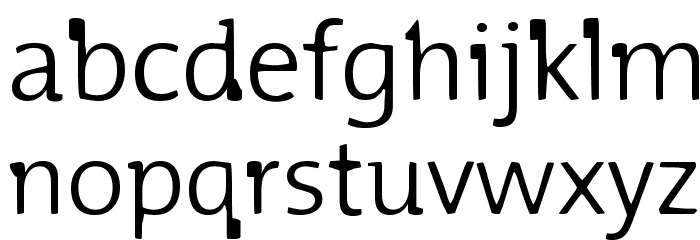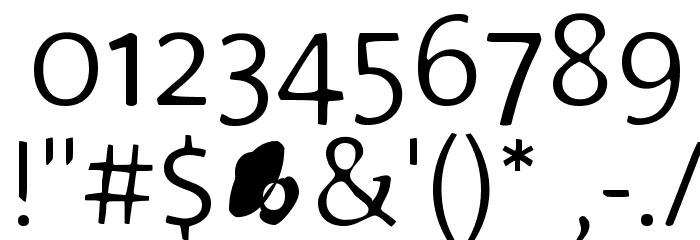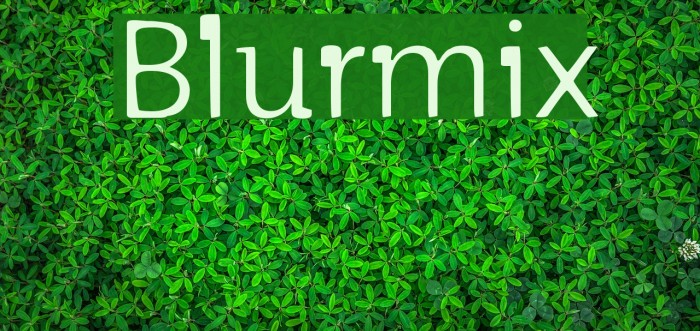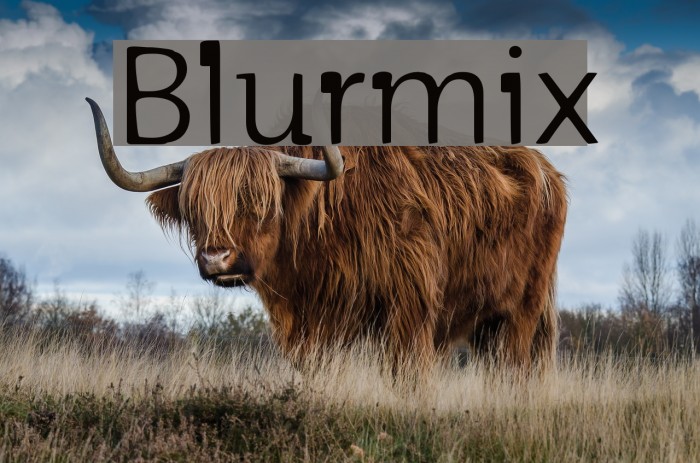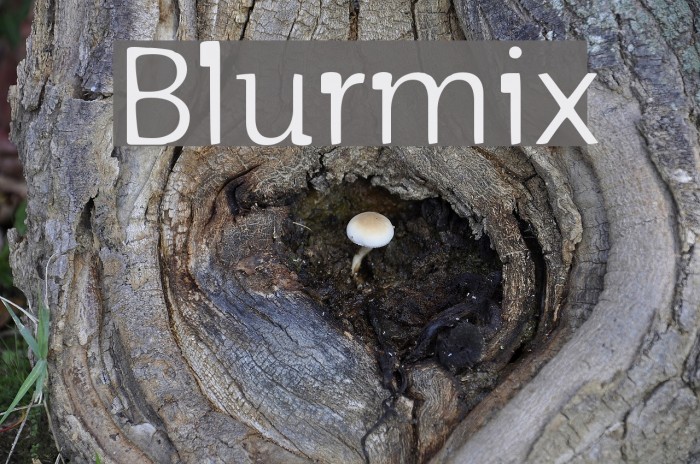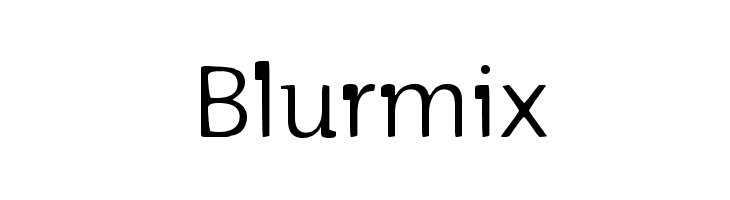
Blurmix Font
This font features a unique blend of modern and playful elements, characterized by its slightly irregular and quirky letterforms. The uppercase letters exhibit a clean, geometric style with subtle variations in stroke width, adding a touch of personality. The lowercase letters maintain a consistent flow, with rounded edges that enhance readability. Numbers are bold and clear, making them suitable for various applications. The special characters are distinct and well-integrated, ensuring versatility in design projects. Overall, this font strikes a balance between professionalism and creativity, making it ideal for both formal and informal uses.
A modern, playful font with quirky letterforms and subtle stroke variations.
- Proposed Projects: Ideal for branding, advertising, children's books, and creative digital content.